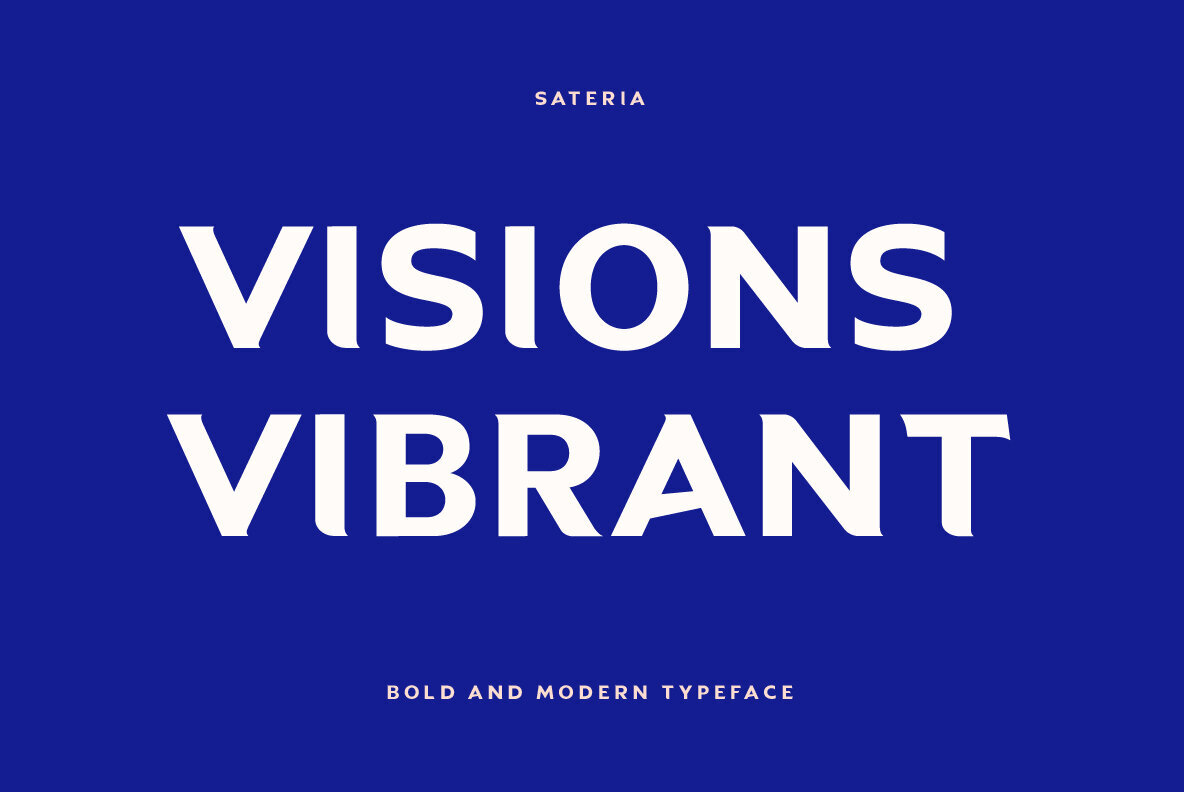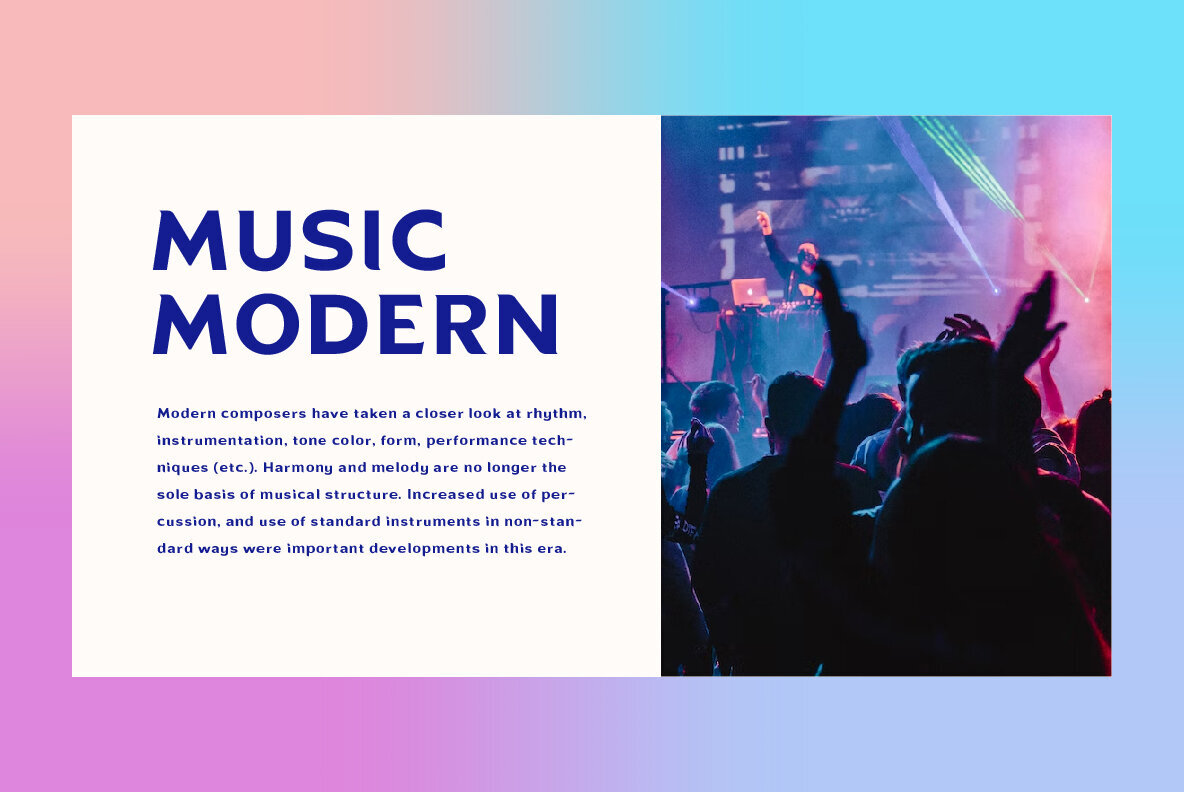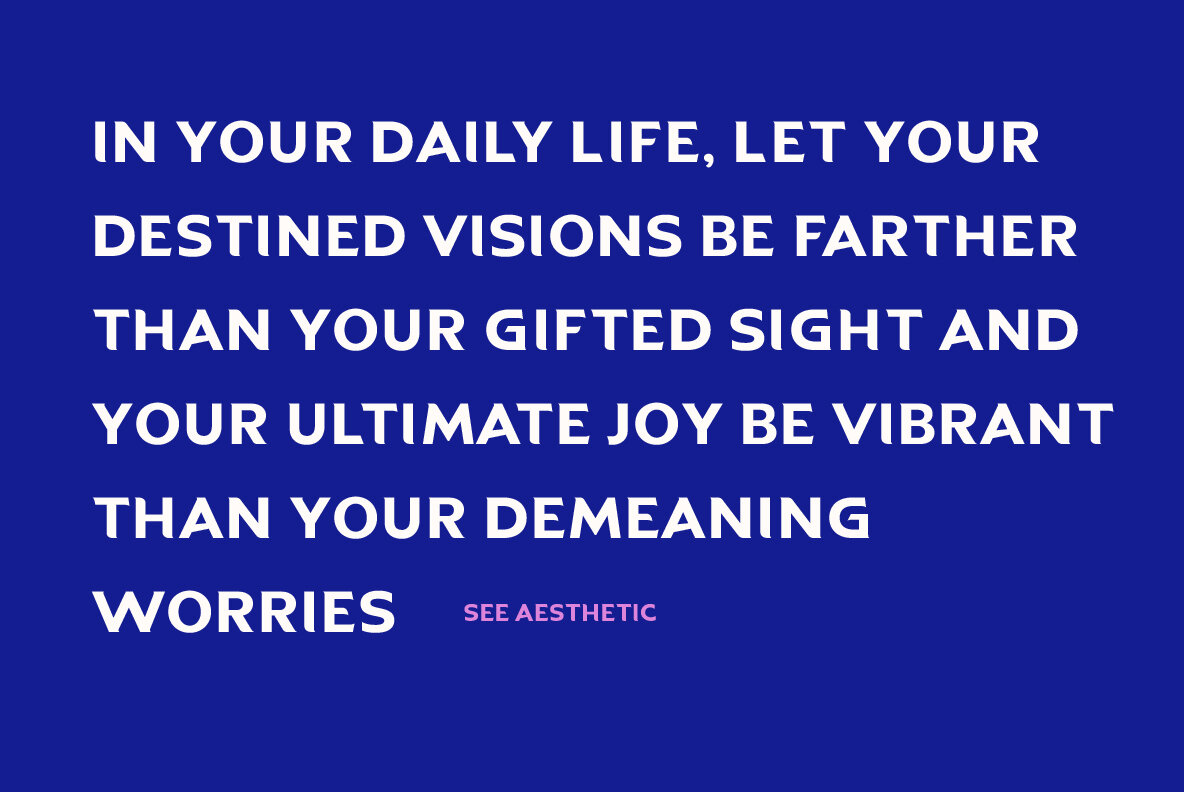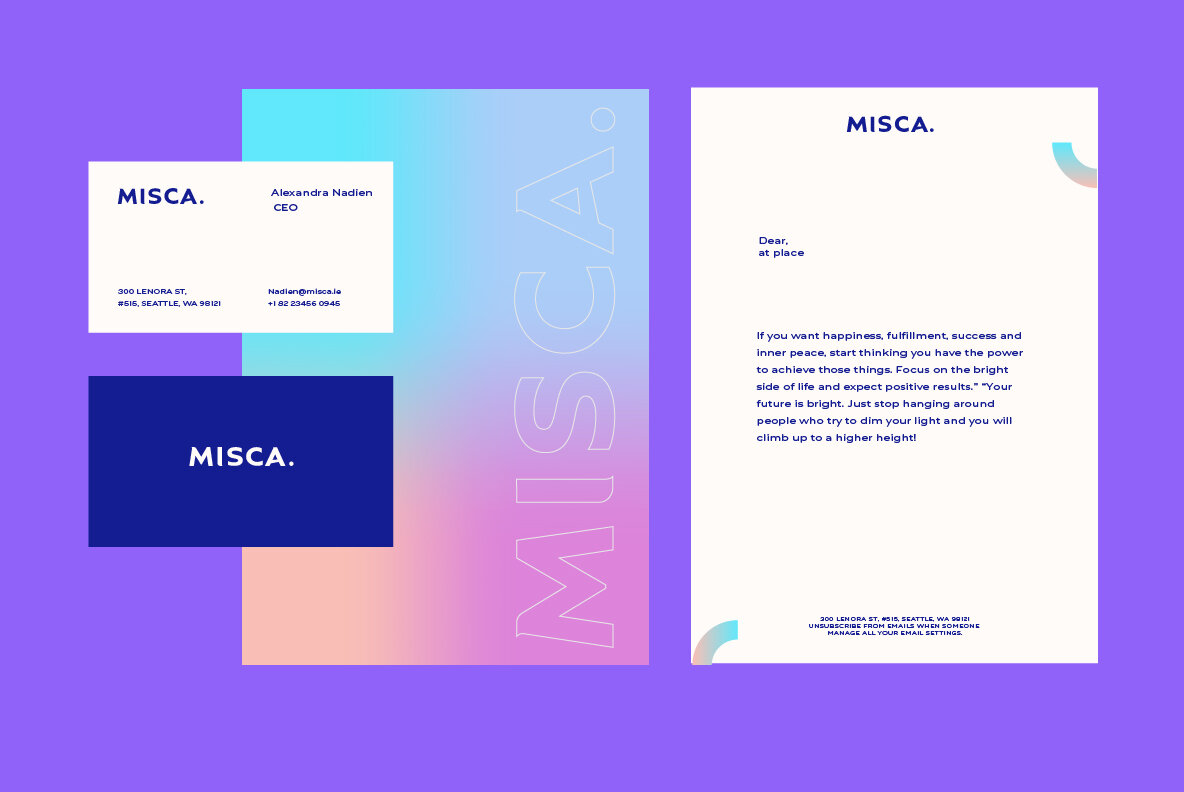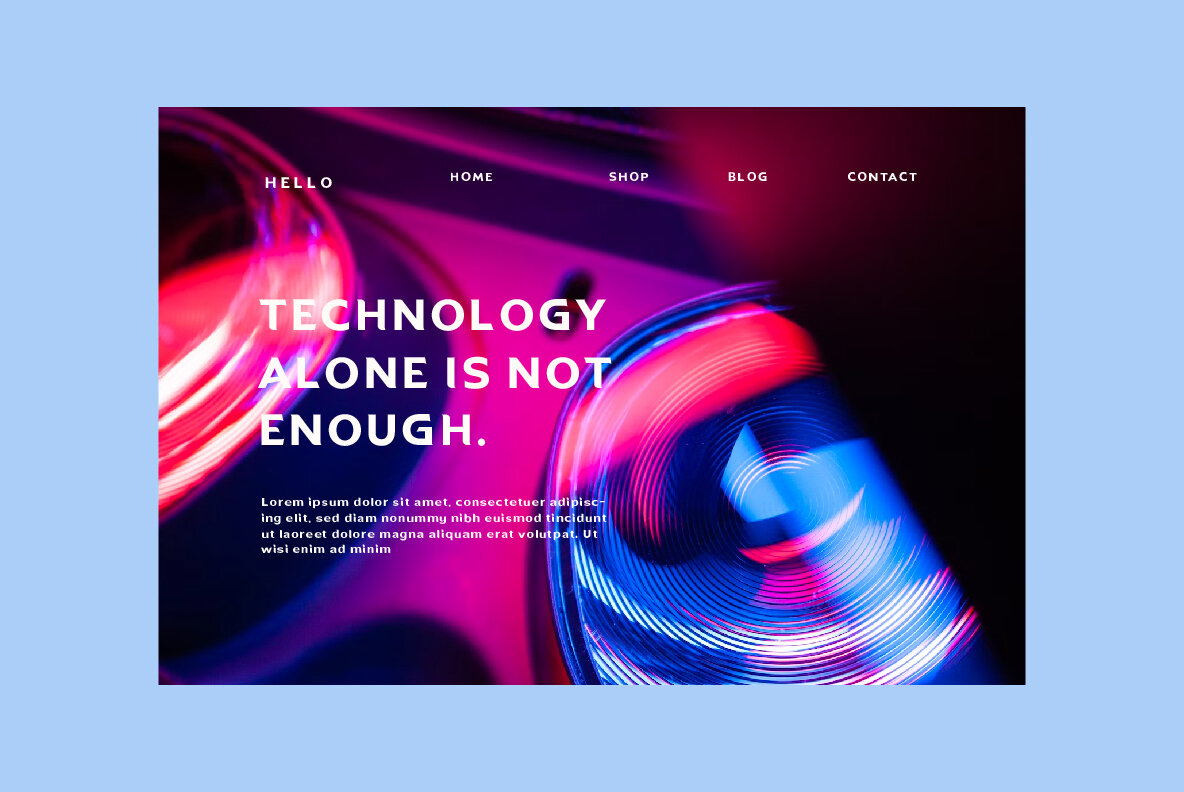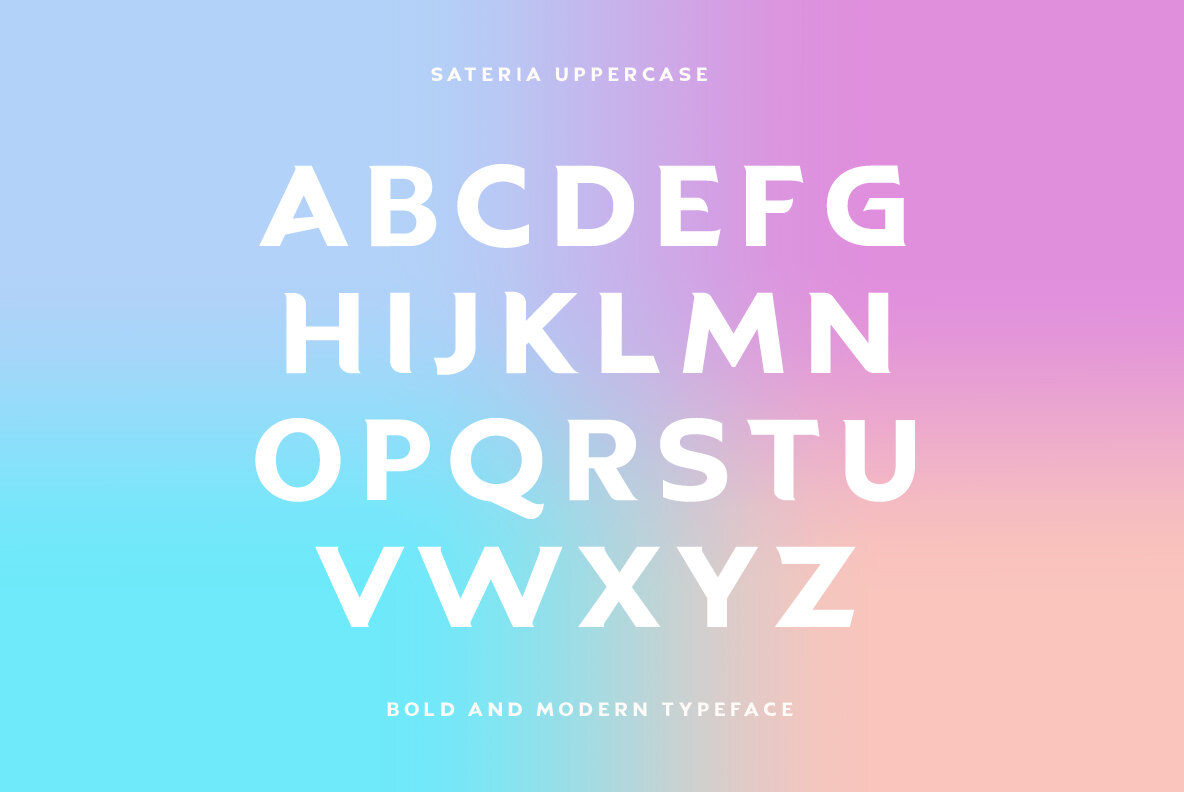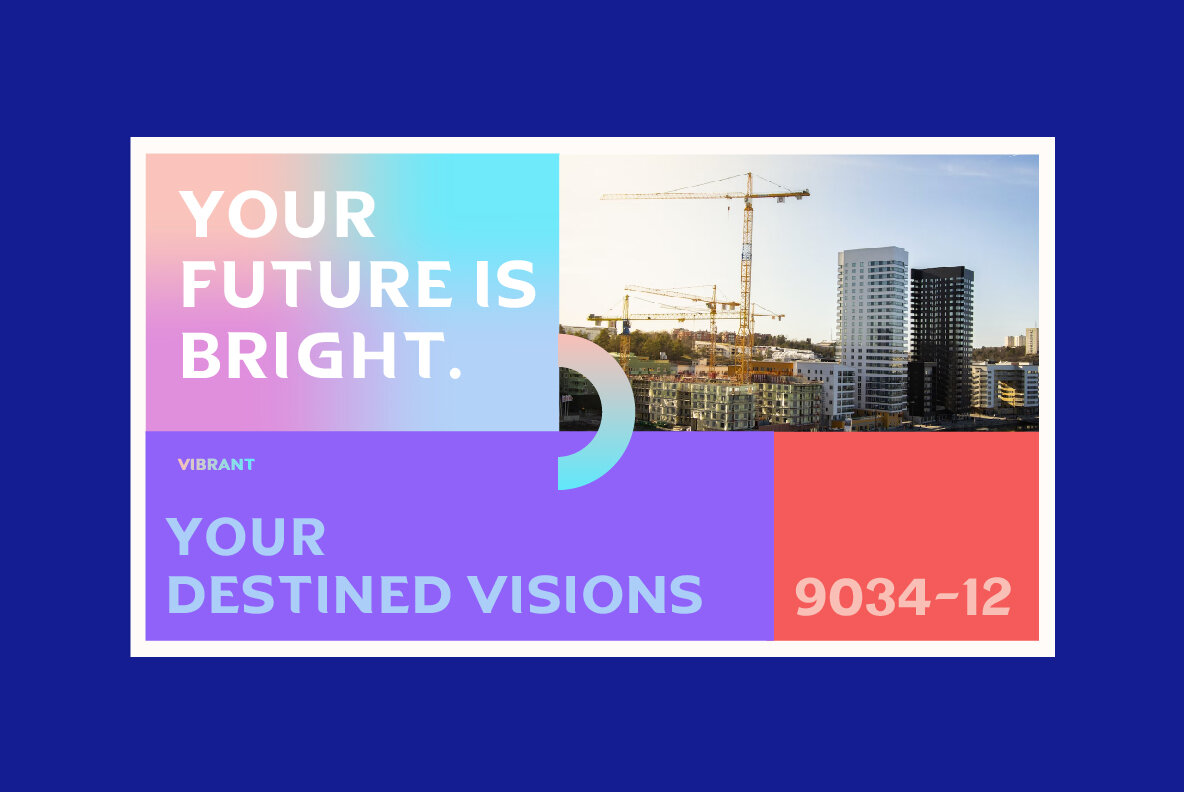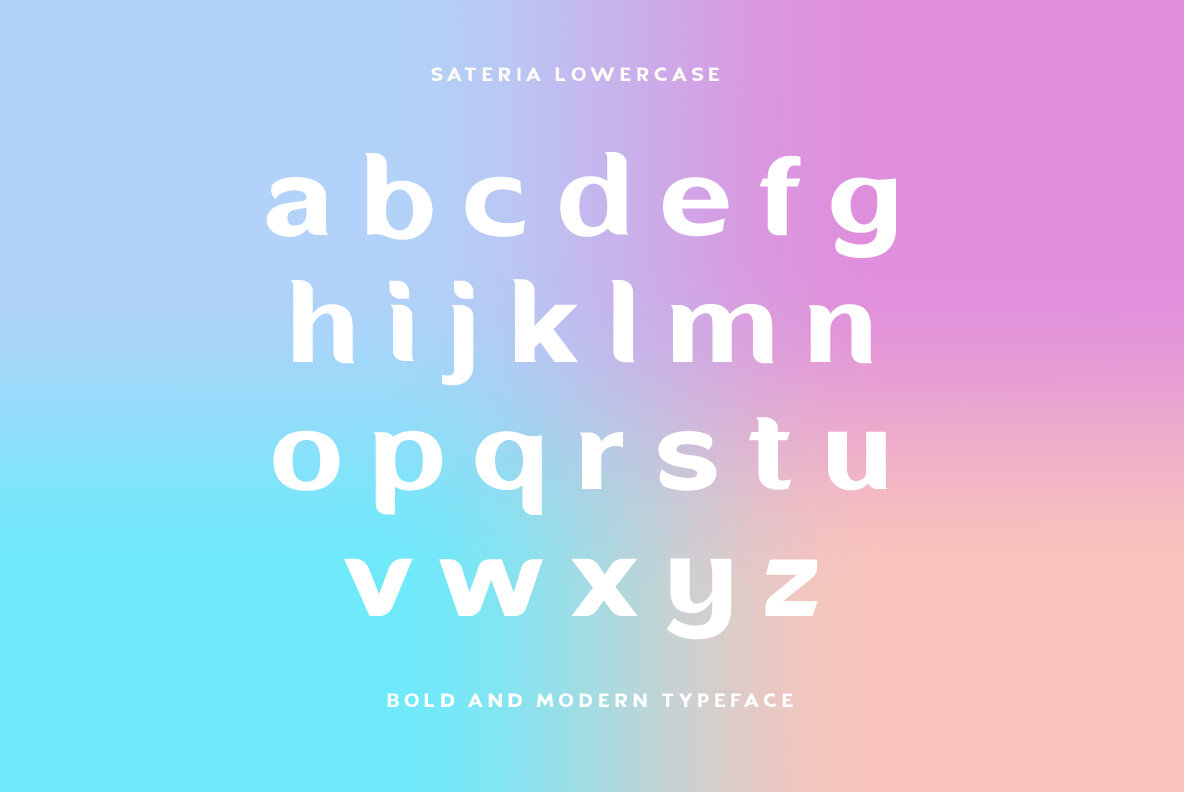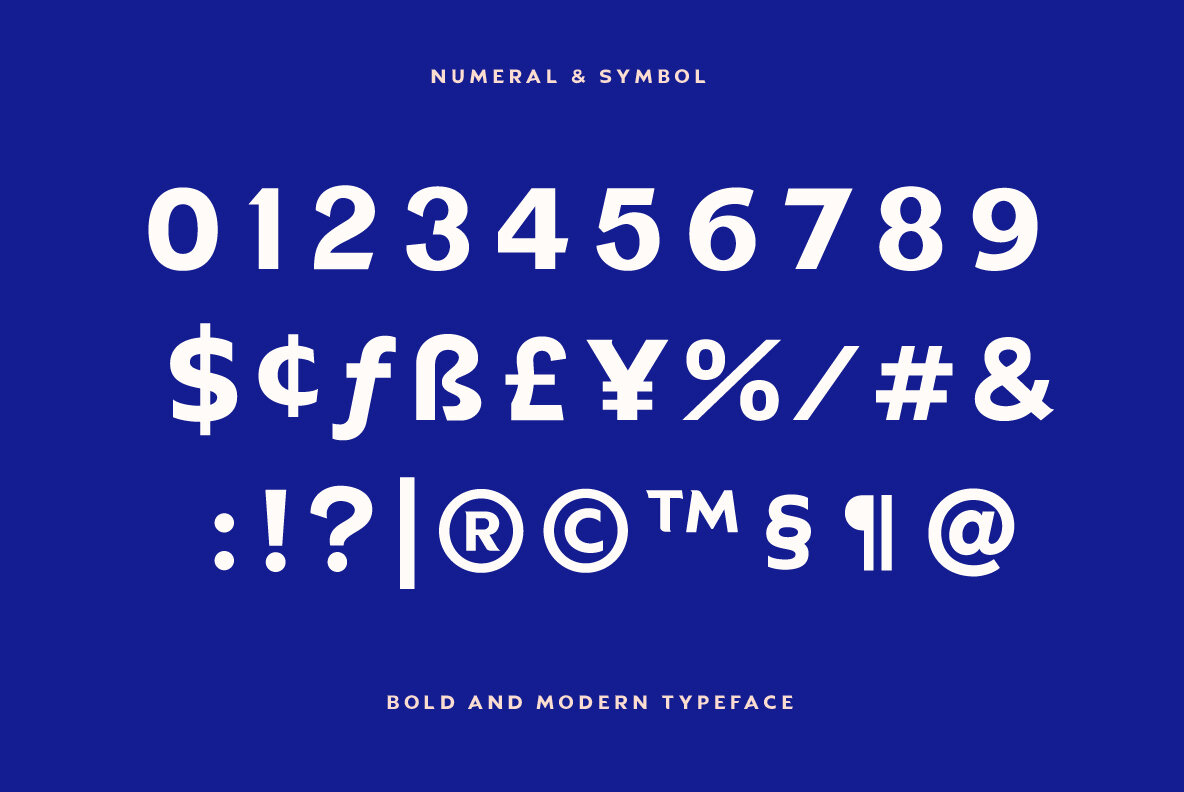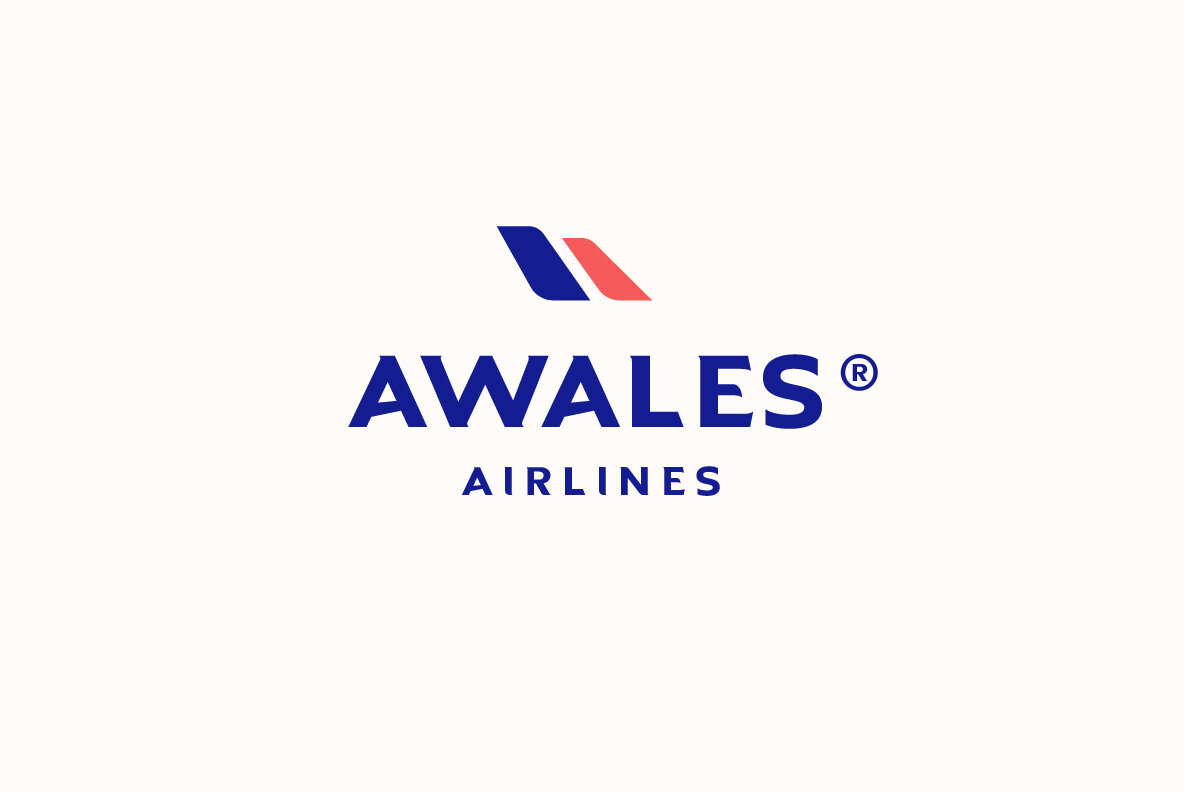
Sateria Font
Sateria Bold
Sateria by Yukita Creative emerges as a potent choice for those seeking minimalist elegance in design. Its streamlined style suits branding, websites, and advertising, harmonizing effortlessly with a wide array of creative endeavors. The ease of use, coupled with its adaptability, makes it an invaluable asset for designers aiming for efficiency and versatility.Sateria: Versatile Simplicity for Branding and More